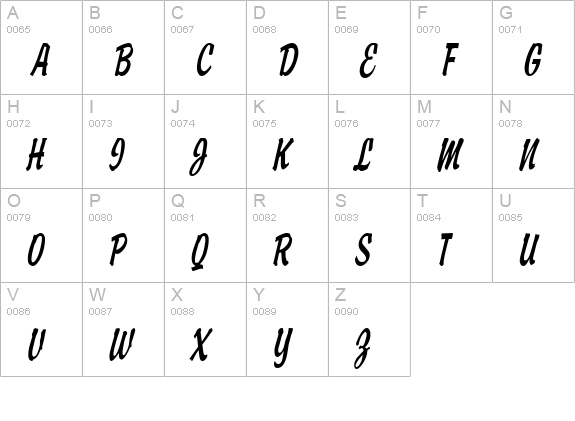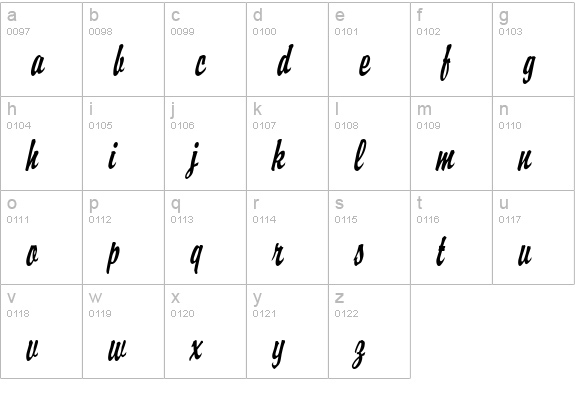
Brisk Italic is a distinctive, italic variant in the Brisk typeface family \xE2\x80\x94 well suited to design and typography projects.
Brisk Italic font is a sleek and modern typeface designed to add a touch of elegance to your projects. Its stylish italic design exudes sophistication and charm, making it perfect for a wide range of applications such as branding, packaging, invitations, and more. The smooth curves and refined details of Brisk Italic font lend a sense of sophistication and class to any design it is used in. Best of all, Brisk Italic font is available for free download at FontsMarket.com. This means you can easily access this premium font without any cost, making it a valuable addition to your font library. Don't miss out on the opportunity to enhance your designs with the timeless beauty of Brisk Italic font – download it today and elevate your projects to new heights of style and elegance.